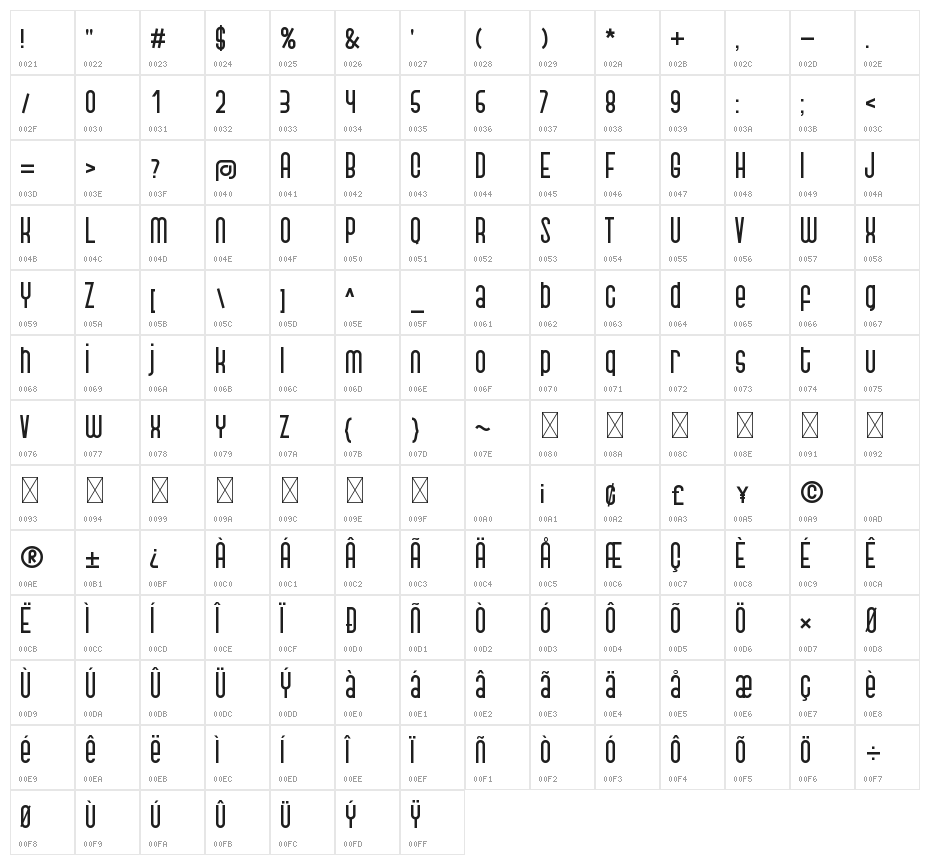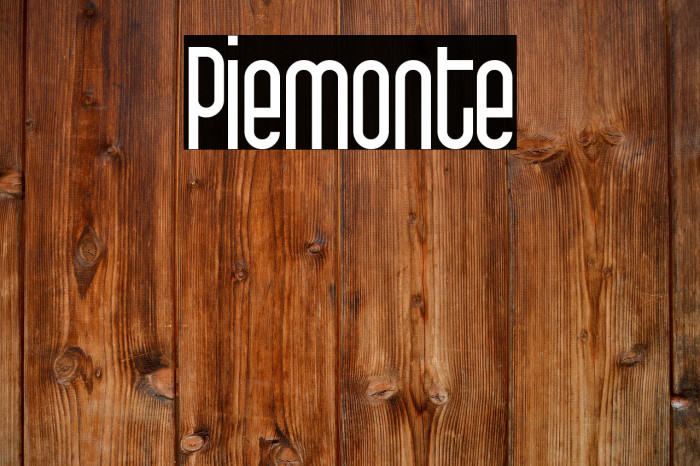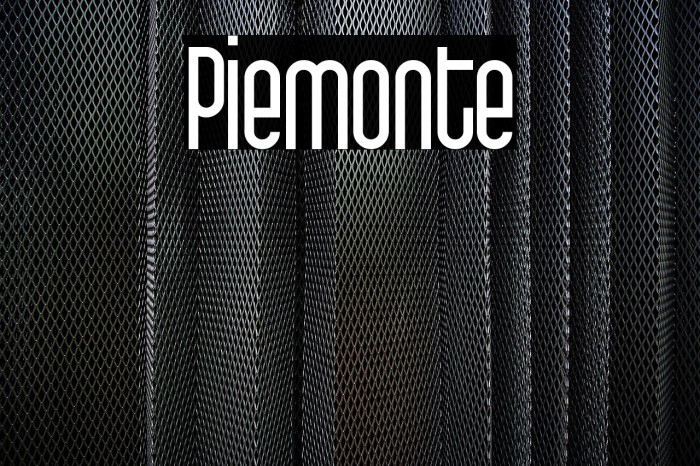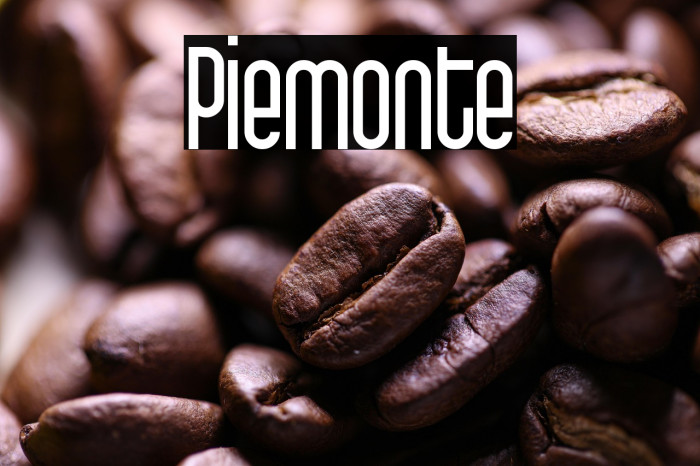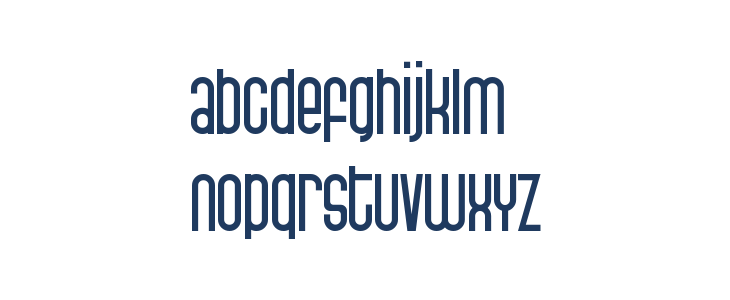
Piemonte Font
Piemonte Description
This font features a modern and sleek design with elongated letterforms that create a sense of elegance and sophistication. The characters are tall and narrow, giving the font a condensed appearance. The uniform stroke width throughout the characters provides a clean and minimalistic look, making it suitable for contemporary design projects. The uppercase and lowercase letters maintain a consistent style, while the numerals and special characters complement the overall aesthetic. This font's unique style is ideal for making a bold statement in various design contexts.